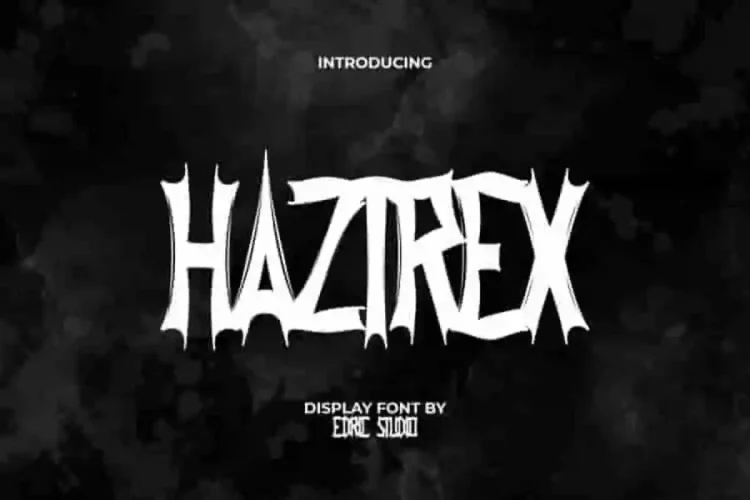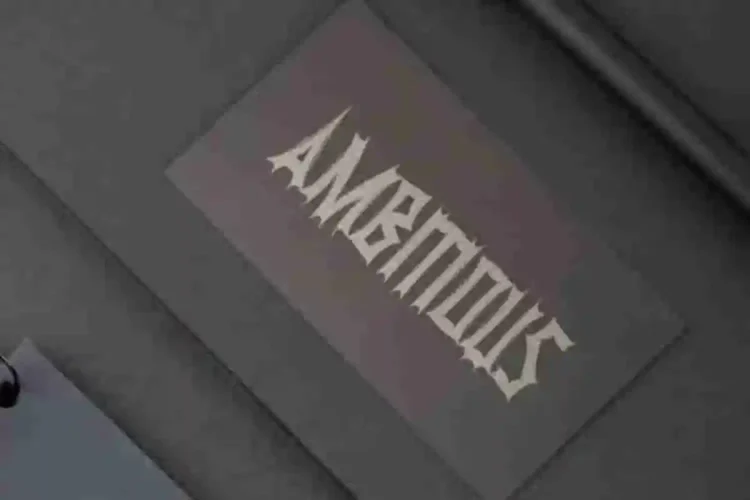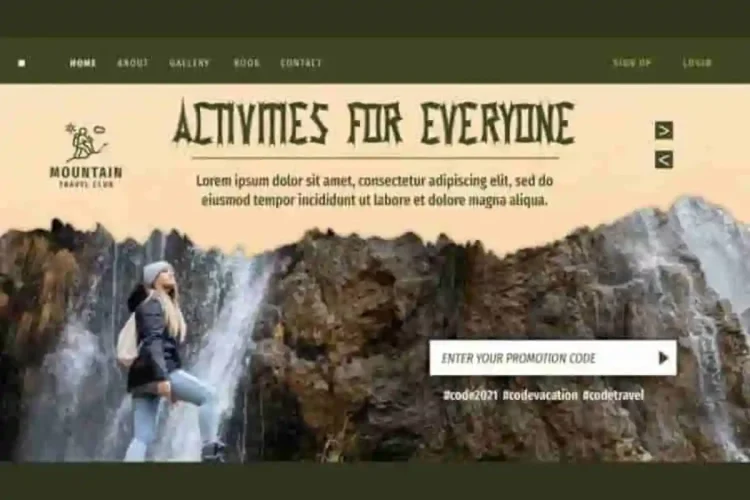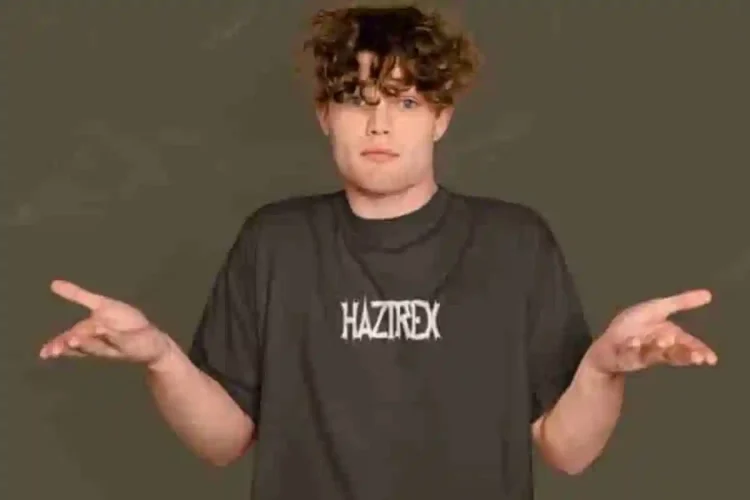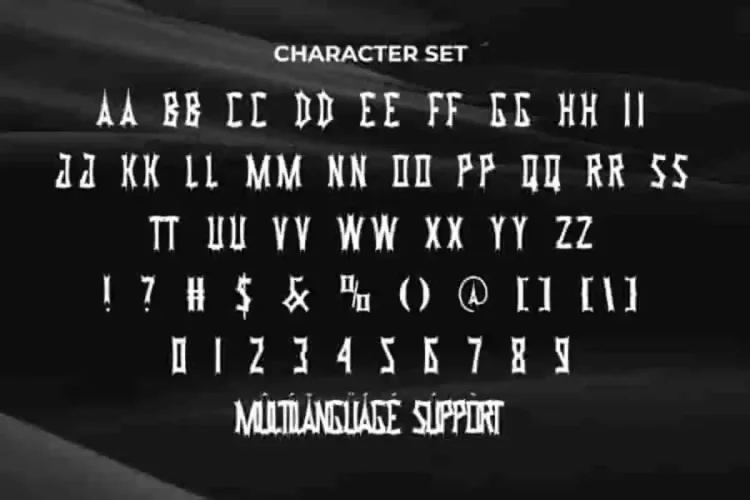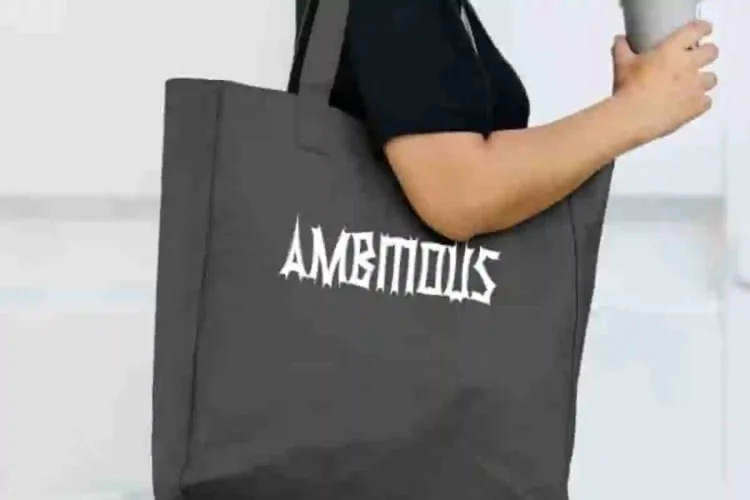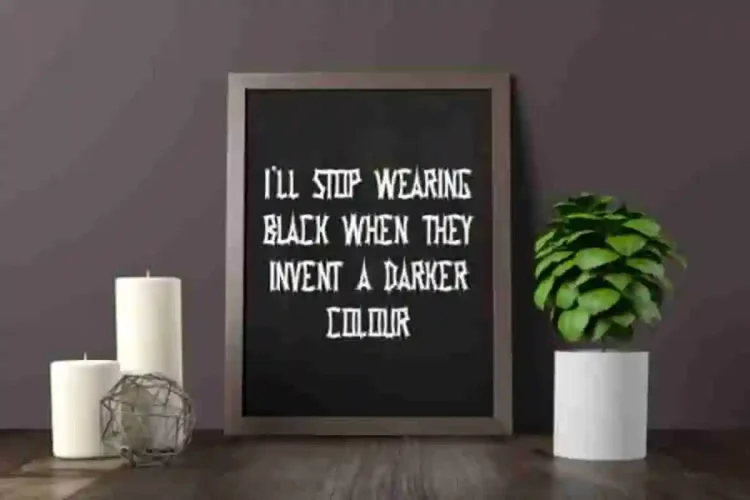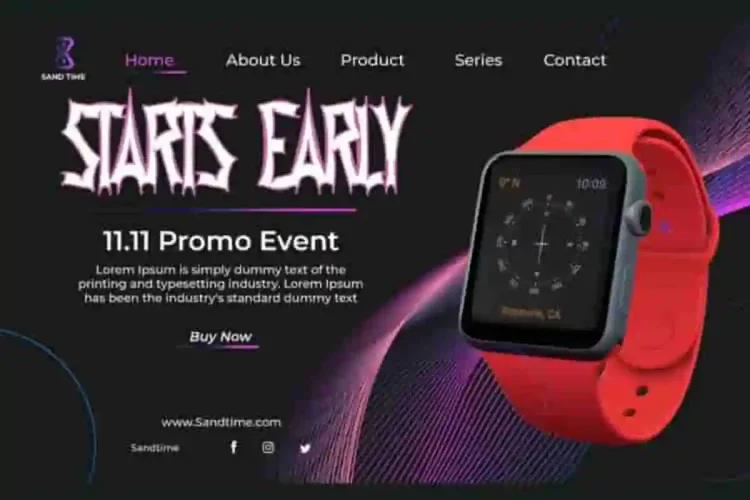
Haztrex Display Font is a rough display font with a black rock metal feel. With sharp edges, bold strokes, and a handcrafted feel, Haztrex is the ultimate font choice for designs that demand attention.
Haztrex Display Grunge Font comes in ALL CAPS with uppercase, lowercase, numbers, punctuation, and symbols, making it versatile for any creative project. This is a fierce display font with sharp edges on each character. The pointy part is what makes it unique and stand out in its own way. From billboards, album covers, brand logos, and fashion labels to posters, stickers, embroidery, websites, and sports gear, this font adds a rugged, powerful vibe that sets your work apart.
Haztrex Display Font a playful typeface with unique decoration in each character. Combine different characters for a bespoke, handcrafted feel. It’s tested to work well in the Adobe Apps (Illustrator, Adobe InDesign, Adobe Photoshop) even work on Microsoft Word. Thanks to PUA encoding, every glyph and alternate character is accessible for custom creative control.